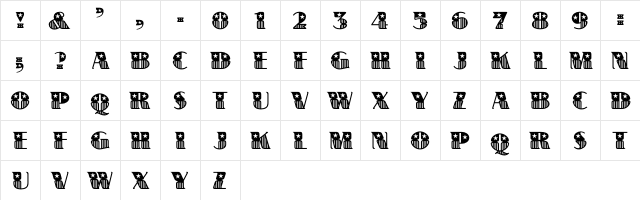
BannerStar Medium Font Preview
BannerStar Medium
Design Context for BannerStar Typeface
BannerStar is a composed and adaptable typeface that performs quietly and consistently across a wide range of design contexts.